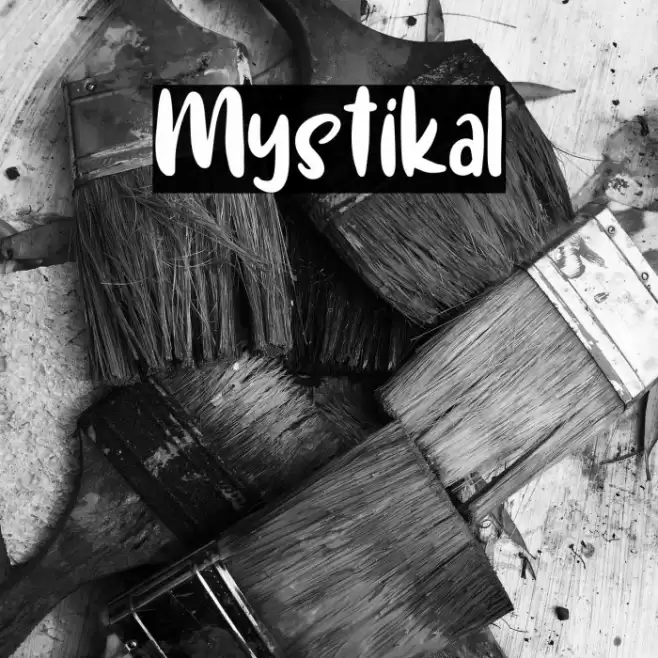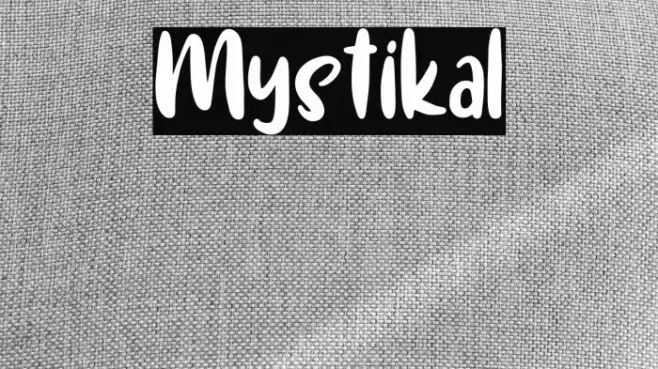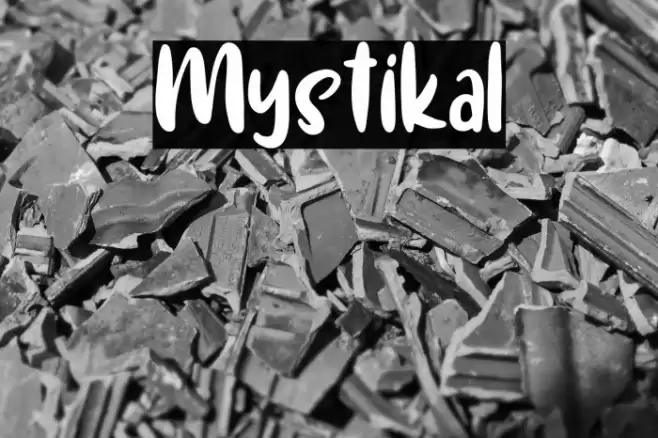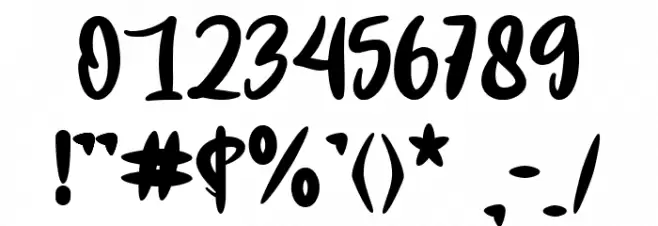
Mystikal Font
Mystikal Description
This font features a playful and dynamic script style with a handwritten feel. The letters are bold and rounded, with a consistent stroke width that gives it a cohesive look. The uppercase letters are slightly larger and more pronounced, while the lowercase letters maintain a smooth flow. The numbers and special characters follow the same stylistic approach, ensuring uniformity across all glyphs. The font exudes a sense of energy and creativity, making it suitable for projects that require a lively and informal touch. The overall appearance is both approachable and stylish, with a modern twist on traditional script fonts.
A bold, playful script font with a handwritten style from Uncategorized fonts.
- Proposed Projects: Ideal for branding, invitations, greeting cards, and social media graphics.
- Use Case: Logos, Headlines, Invitations